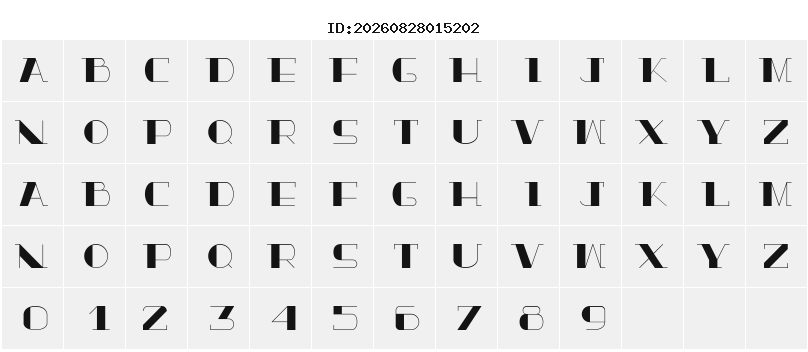
TrueLove Preview
• Font Name: TrueLove
• Full Font Name: TrueLove Bold
About TrueLove.ttf
TrueLove.ttf is a modern, elegant sans-serif font designed for ultimate readability and visual harmony. Perfect for branding, headlines, web design, and print materials.